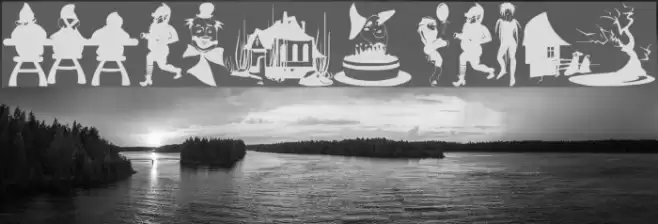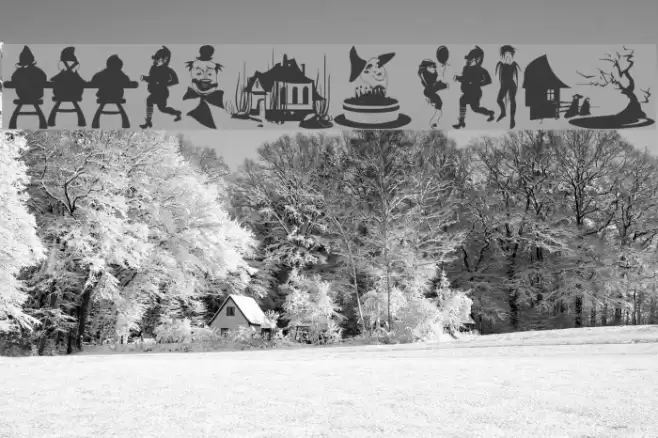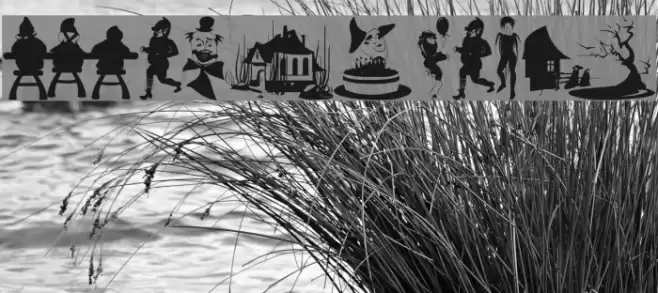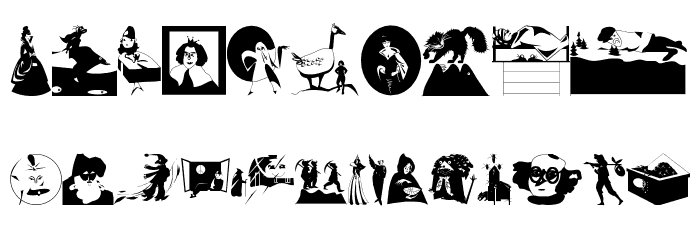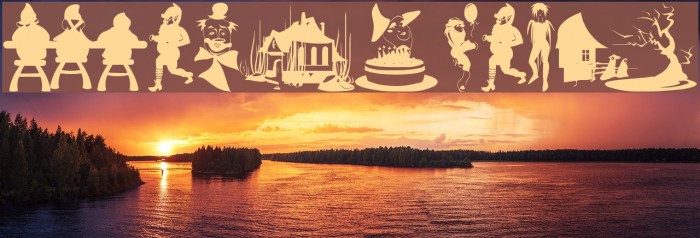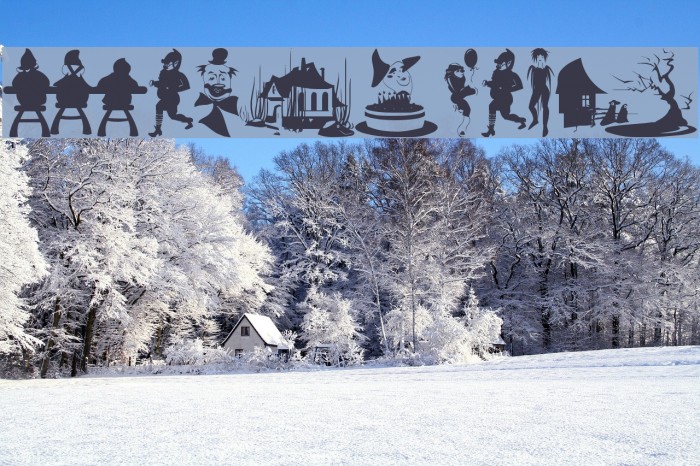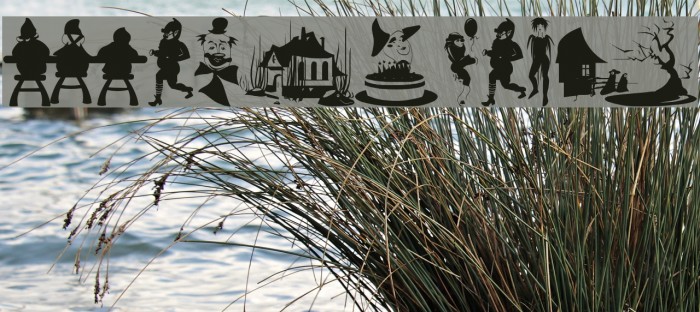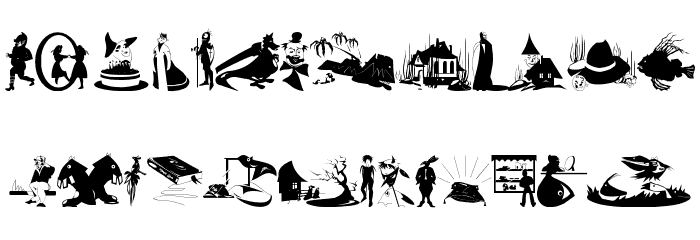
MagicBats Font
MagicBats Description
A decorative dingbat set featuring a wide variety of whimsical, storybook-style silhouettes and pictorial illustrations, including people, animals, objects, and scenes. Each character is represented by a unique, detailed black-and-white graphic rather than a traditional letterform.
Whimsical pictorial dingbats with storybook and fantasy themes from Uncategorized fonts.
- Proposed Projects: Children's books, invitations, themed posters, scrapbooking, decorative borders, creative design projects.
- Overall Style: Decorative, Whimsical, Storybook
- Use Case: Illustrative accents, creative headings, decorative elements, non-textual communication.